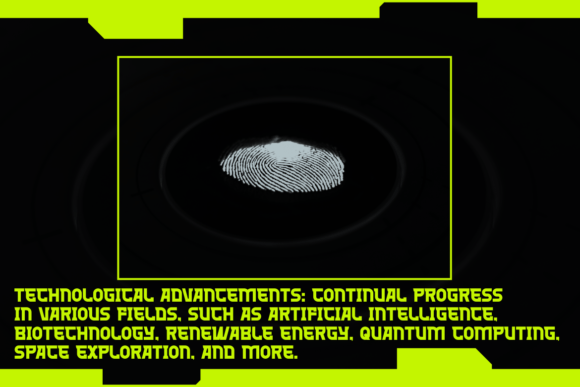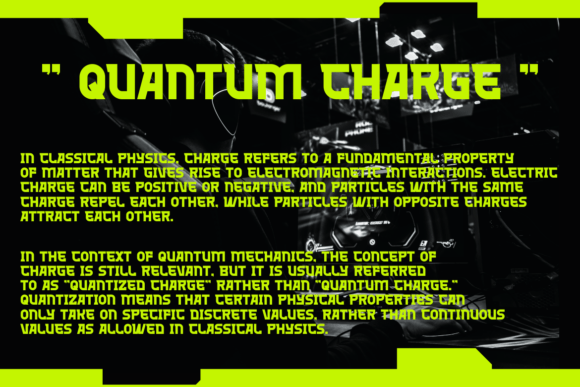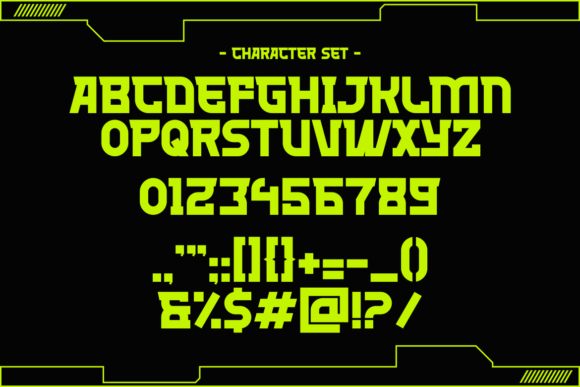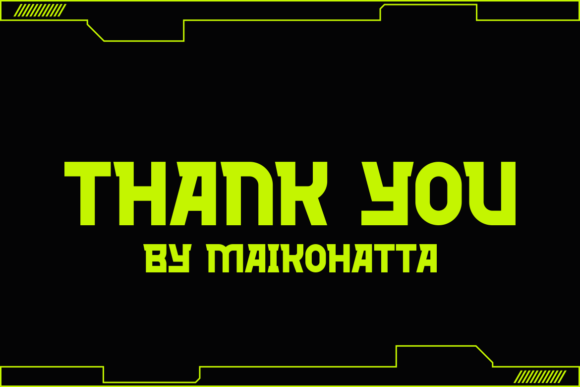
Introducing Finalized Font: The Ultimate Futuristic Display Font
In the realm of typography, fonts play a crucial role in conveying the tone and aesthetic of a design. For projects that require a modern and futuristic touch, the Finalized font is an excellent choice. This modern display font is specifically designed to evoke a sense of advanced technology, innovation, and energy, making it perfect for designs related to technology, robotics, science, and modern lifestyle.
What is Finalized Font?
Finalized is a type of lettering that features a futuristic design inspired by advanced technology. This font reflects the digital era and technological advancements, bringing a sense of modernity, innovation, and energy to any design. With sharp lines, geometric letter shapes, and futuristic elements, Finalized font is designed to make a statement.
Characteristics of Finalized Font
The Finalized font boasts several distinct characteristics that set it apart from other fonts. Some of its notable features include:
- Sharp Lines: The font features sharp, clean lines that give it a sleek and modern look.
- Geometric Letter Shapes: The letters are designed with geometric shapes, which adds to the font’s futuristic feel.
- Futuristic Elements: The font incorporates futuristic elements, such as angular lines and curves, to create a truly unique look.
Use Cases for Finalized Font
The Finalized font is versatile and can be used in a variety of design projects, including:
- Logos: The font’s modern and futuristic design makes it perfect for logos related to technology, robotics, and science.
- Website Designs: The font can be used to create a futuristic and modern look for websites related to technology, modern lifestyle, and innovation.
- Posters: The font’s bold and eye-catching design makes it ideal for posters related to technology, science, and modern lifestyle.
- Creative Projects: The font can be used in various creative projects, such as brochures, flyers, and business cards, to add a futuristic touch.
Benefits of Using Finalized Font
Using the Finalized font in your design projects offers several benefits, including:
- Modern and Futuristic Look: The font’s modern and futuristic design helps to create a unique and eye-catching look for your designs.
- Versatility: The font can be used in a variety of design projects, from logos to website designs.
- Easy to Read: Despite its futuristic design, the font is easy to read, making it perfect for body text and headings.
Tips for Using Finalized Font
To get the most out of the Finalized font, here are some tips to keep in mind:
- Use it Sparingly: Use the font sparingly to create a bold and eye-catching design.
- Pair it with Other Fonts: Pair the Finalized font with other fonts to create a unique and interesting look.
- Experiment with Colors: Experiment with different colors to find the perfect combination that complements the font.
In conclusion, the Finalized font is a modern and futuristic display font that is perfect for designs related to technology, robotics, science, and modern lifestyle. With its sharp lines, geometric letter shapes, and futuristic elements, this font is sure to make a statement. Whether you’re a designer or a crafter, the Finalized font is an excellent choice for adding a touch of modernity and innovation to your designs.